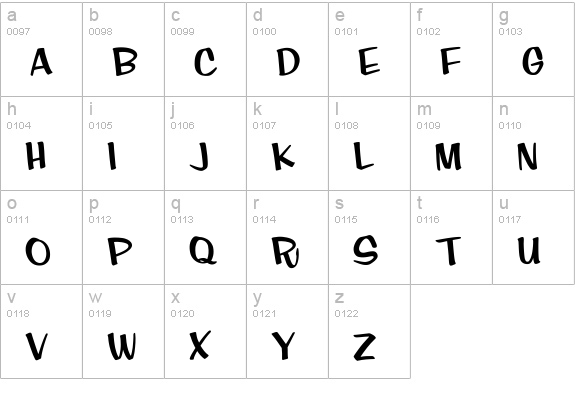
Fink Casual is a completely free font in the Fancy > Comic category, designed by yifei. It has been downloaded 1,316 times and is available for Windows, Mac and Linux.
Fink Casual font is a delightful and charming typeface that exudes a sense of casual elegance. With its playful yet modern design, this font is perfect for a wide range of creative projects, from branding to social media graphics. The smooth curves and unique letterforms of Fink Casual add a touch of personality to any text.